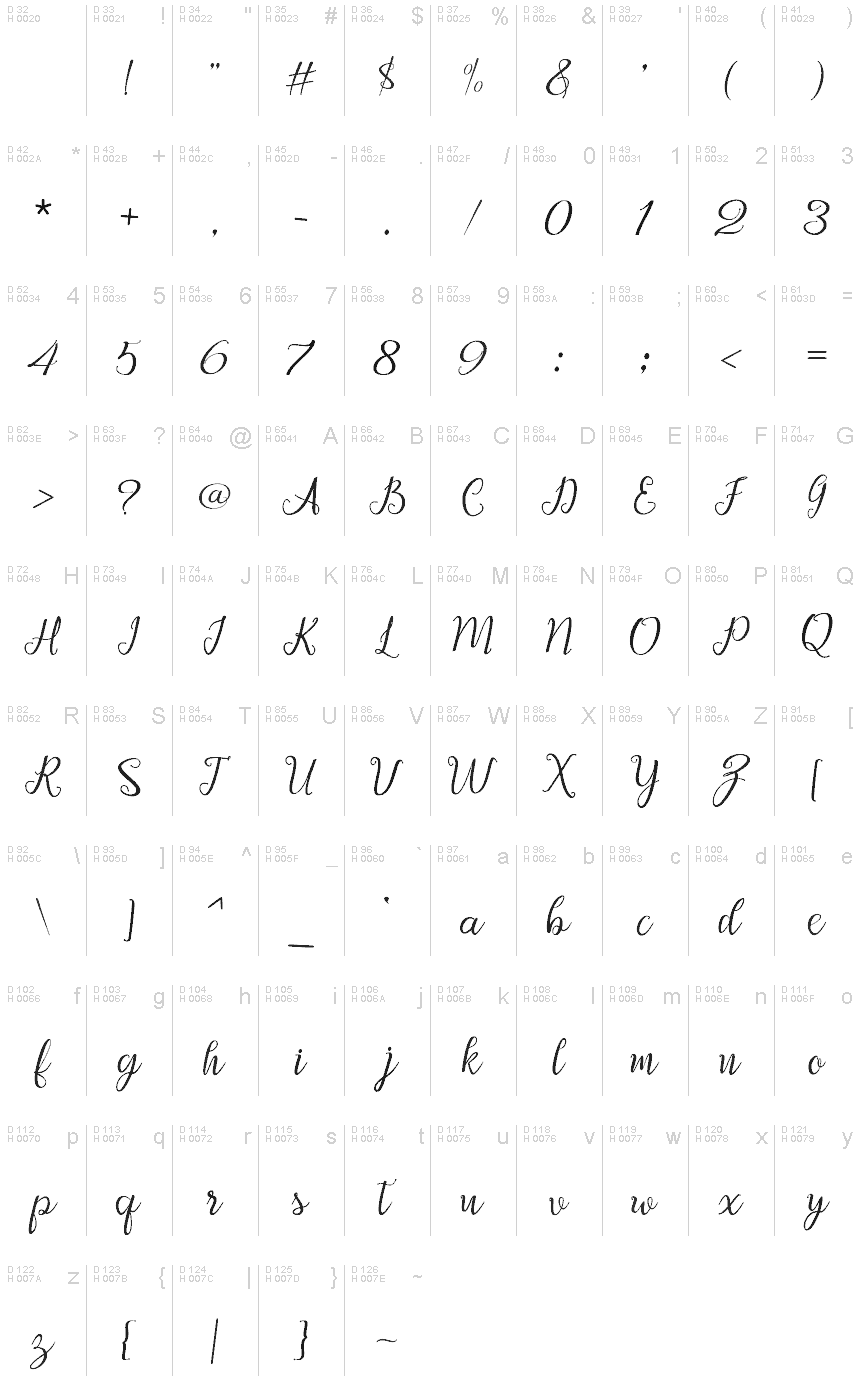
Afrilescript
Afrile Script a new fresh & modern script with a handmade calligraphy style, decorative characters and a dancing baseline! So beautiful on invitation like greeting cards, branding materials, business cards, quotes, posters, and more!!